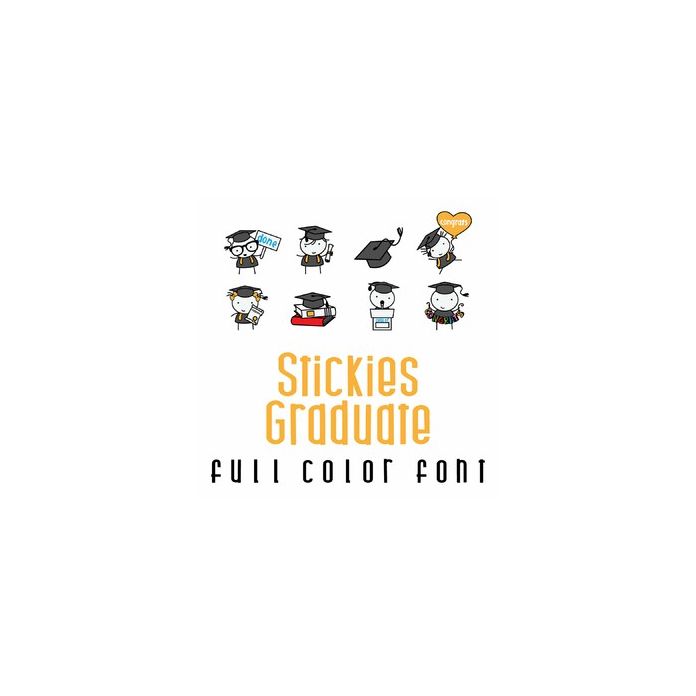
This adorable full color doodlebat font features 26 of our Stickies ready for graduation. Perfect for cards, crafts, gifts, decor, scrap book pages, planner stickers and more!